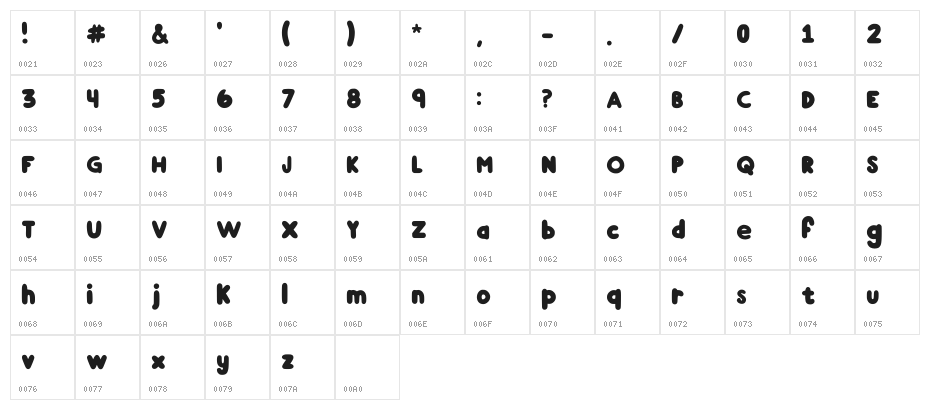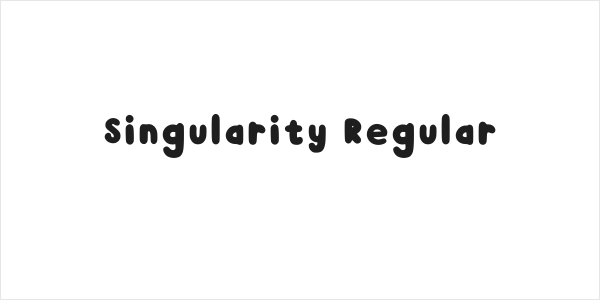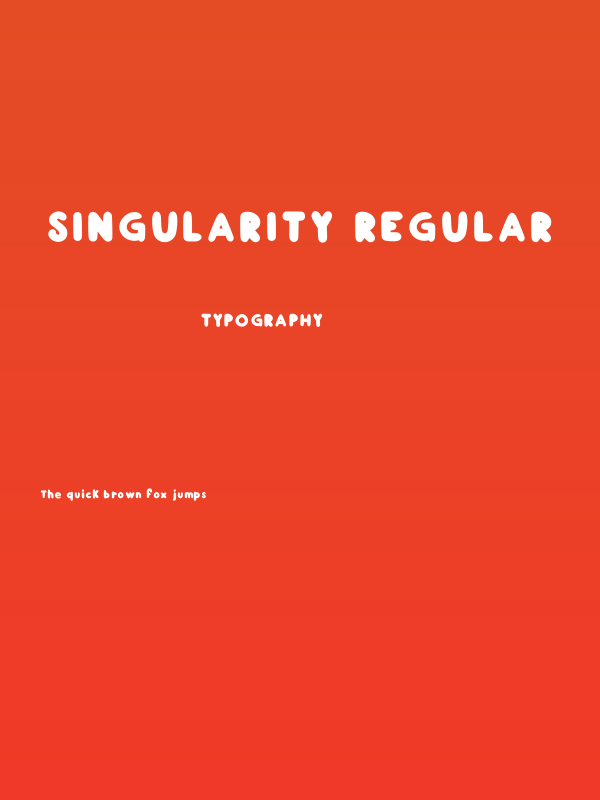
Singularity Regular Font
Singularity Regular Description
This font features a playful and rounded style, characterized by its bold and bubbly appearance. The letters are uniformly thick, giving it a consistent and cohesive look. The rounded edges and soft curves create a friendly and approachable feel, making it ideal for designs that aim to convey warmth and fun. The numbers and special characters maintain the same playful aesthetic, ensuring a harmonious design across all elements. Its simplicity and boldness make it highly legible, even at smaller sizes, while the unique character shapes add a touch of whimsy.
| Proposed Projects | Ideal for children's books, playful branding, party invitations, and casual social media graphics. |